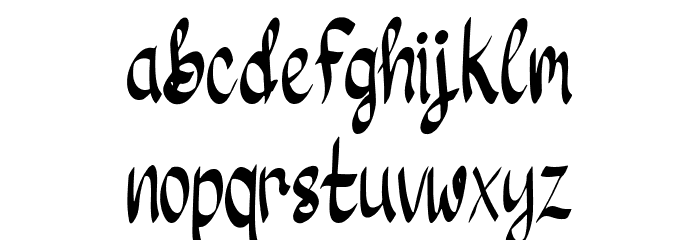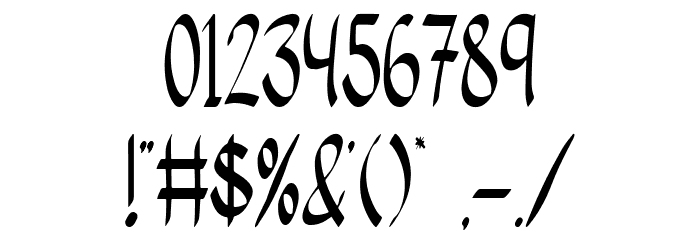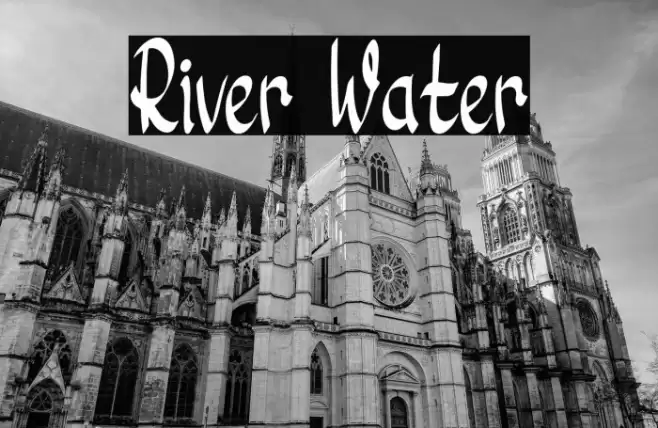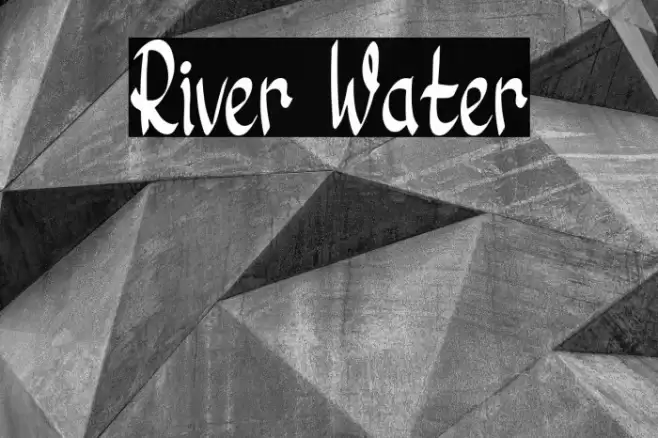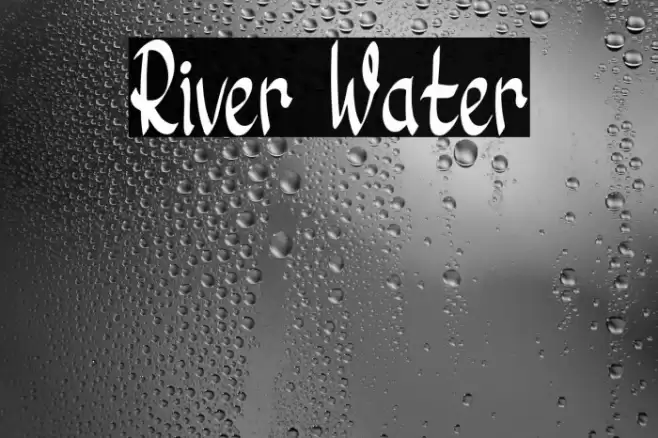
River Water Font
This font features a dynamic and fluid script style, characterized by its flowing, cursive letterforms that mimic the natural movement of handwriting. The uppercase letters are bold and slightly elongated, giving a sense of elegance and sophistication. The lowercase letters maintain a consistent rhythm, with smooth curves and loops that enhance readability while adding a touch of artistic flair. The numerals are distinct and well-balanced, complementing the overall aesthetic. Special characters are thoughtfully designed to match the script's fluidity, making this font versatile for various creative applications.
A fluid and elegant script font with dynamic, cursive letterforms.
- Proposed Projects: Ideal for wedding invitations, greeting cards, branding projects, and elegant packaging designs.
- Use Case: Logos, Invitations, Decorative text